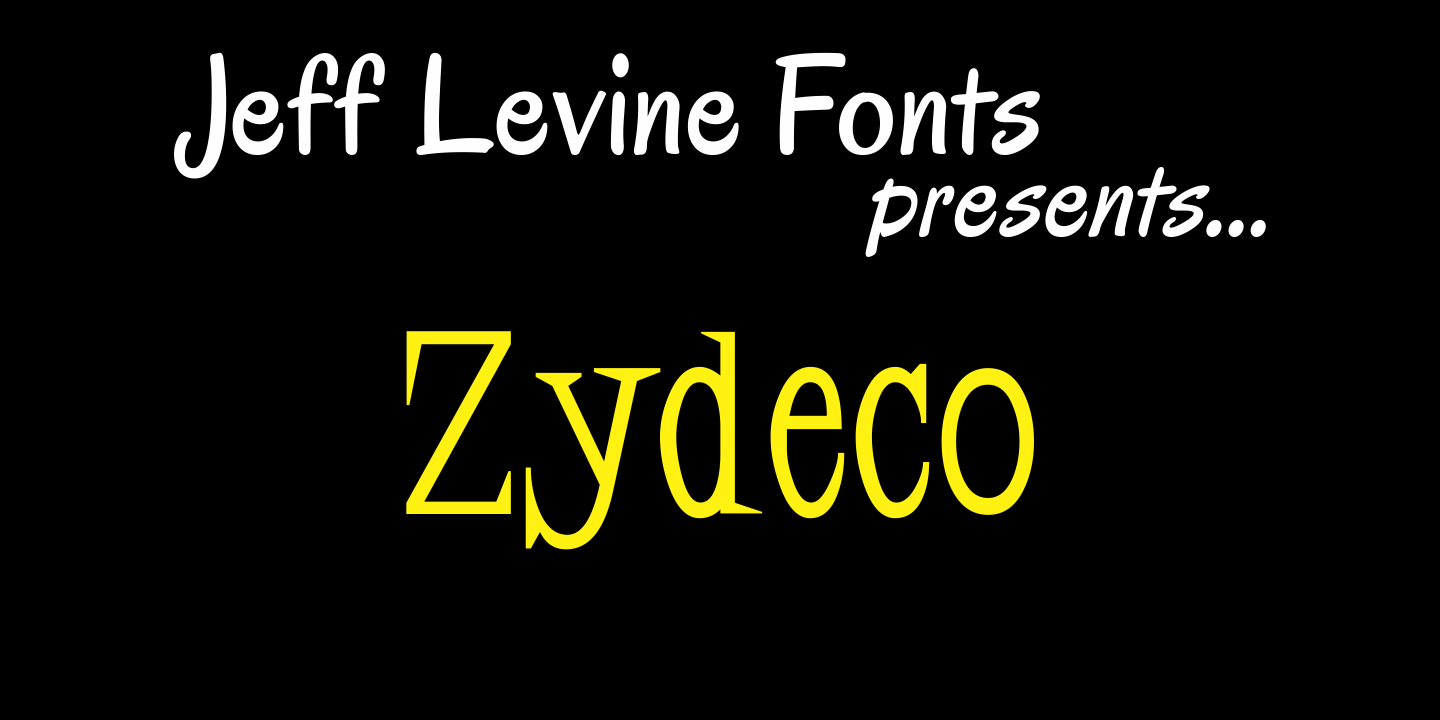
Zydeco
Zydeco JNL gives the 'Latin' style spur serif treatment to Jeff Levine's Halavah Twist JNL, for a new and fun typeface named after the Louisiana French-Creole music popularized by accordion player Clifton Chenier in the 1950s.